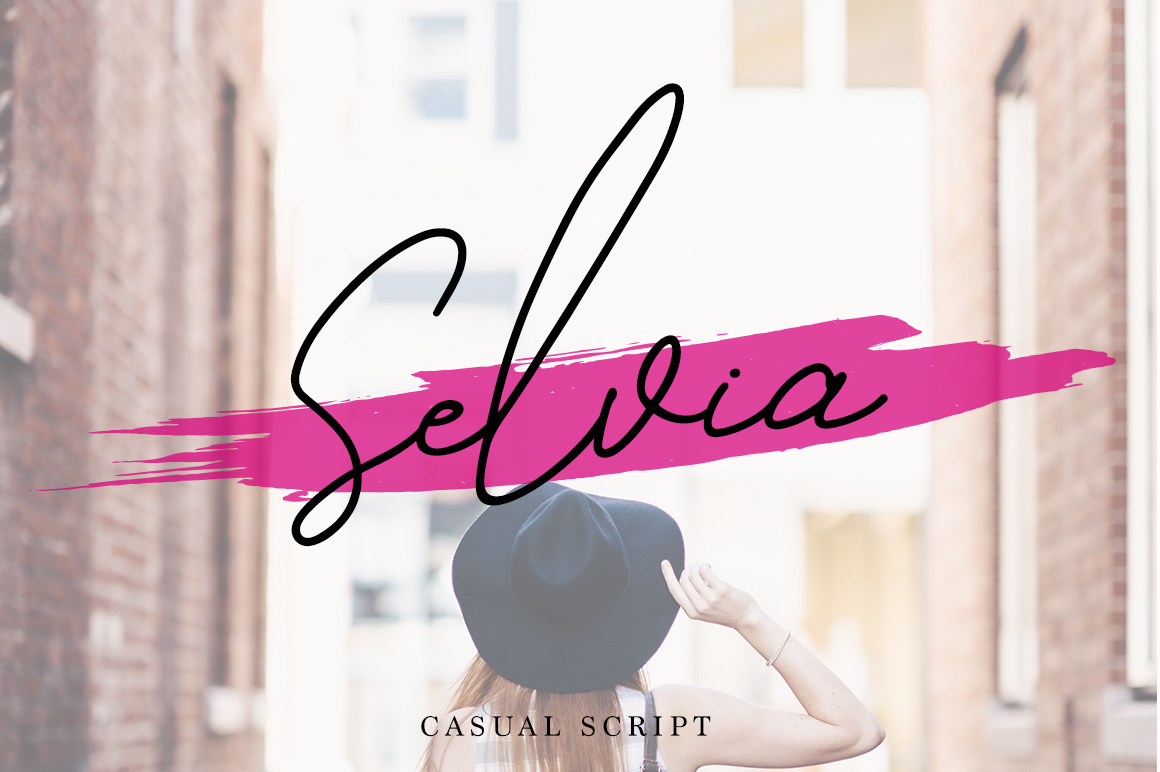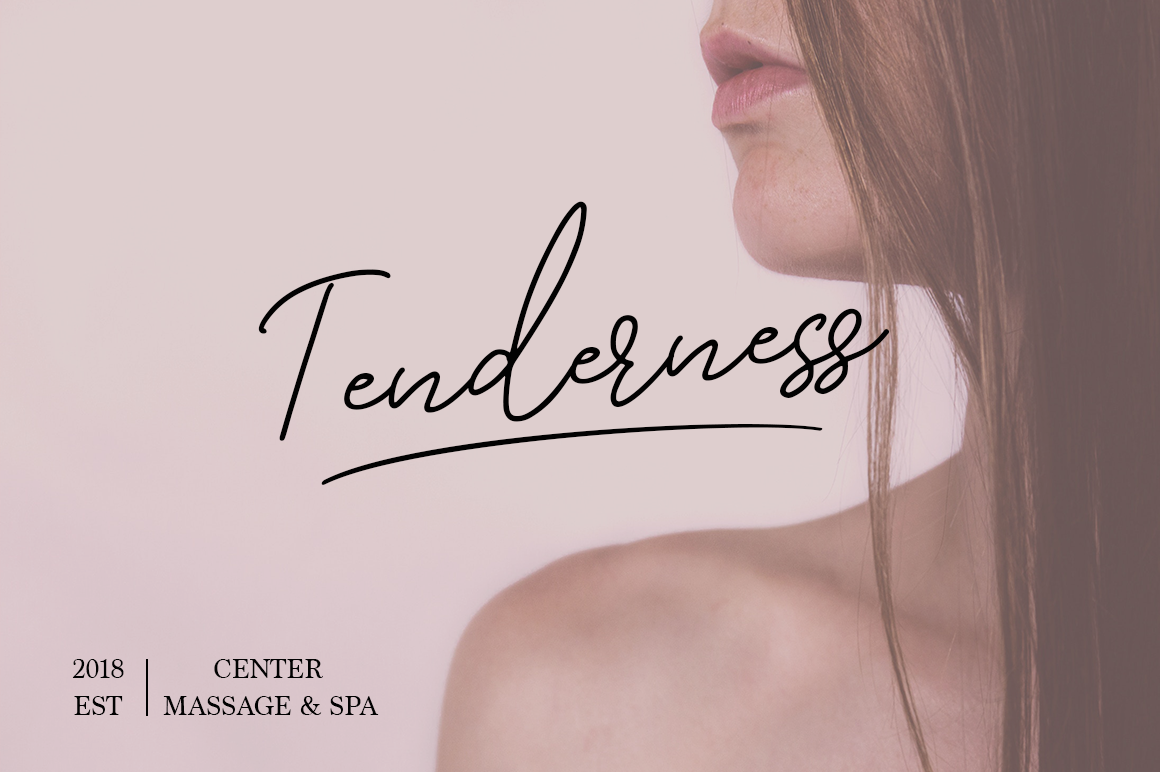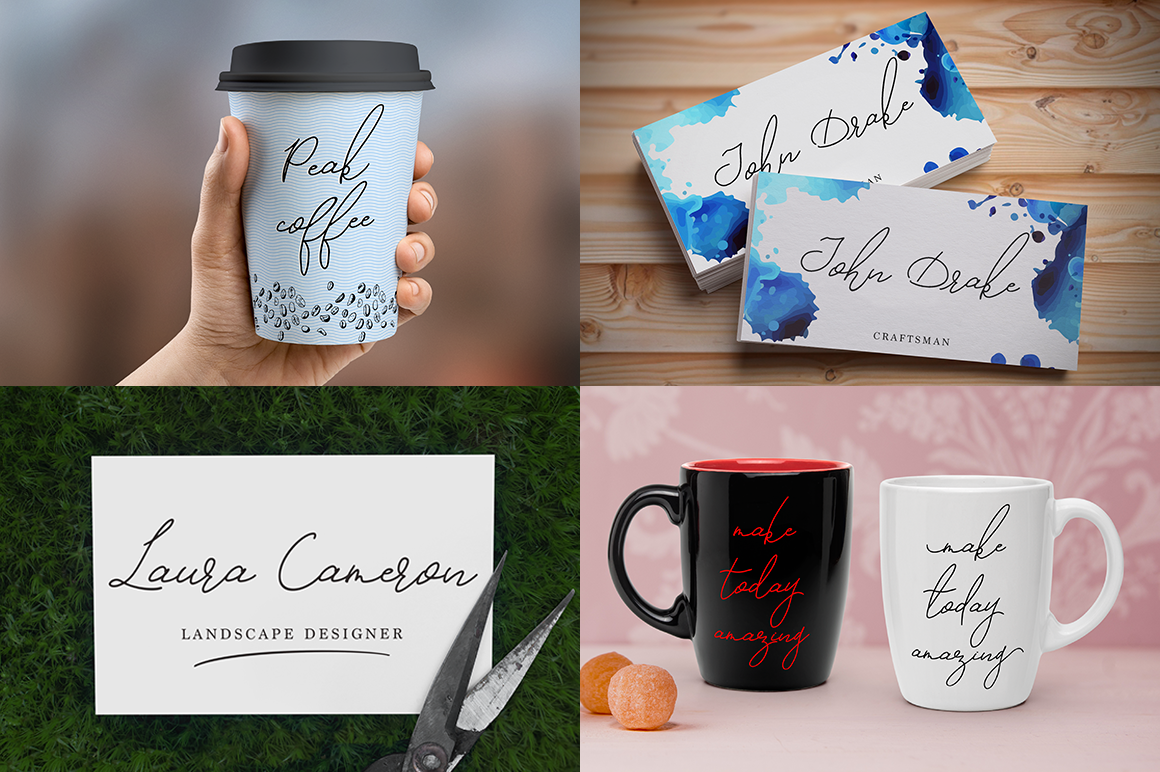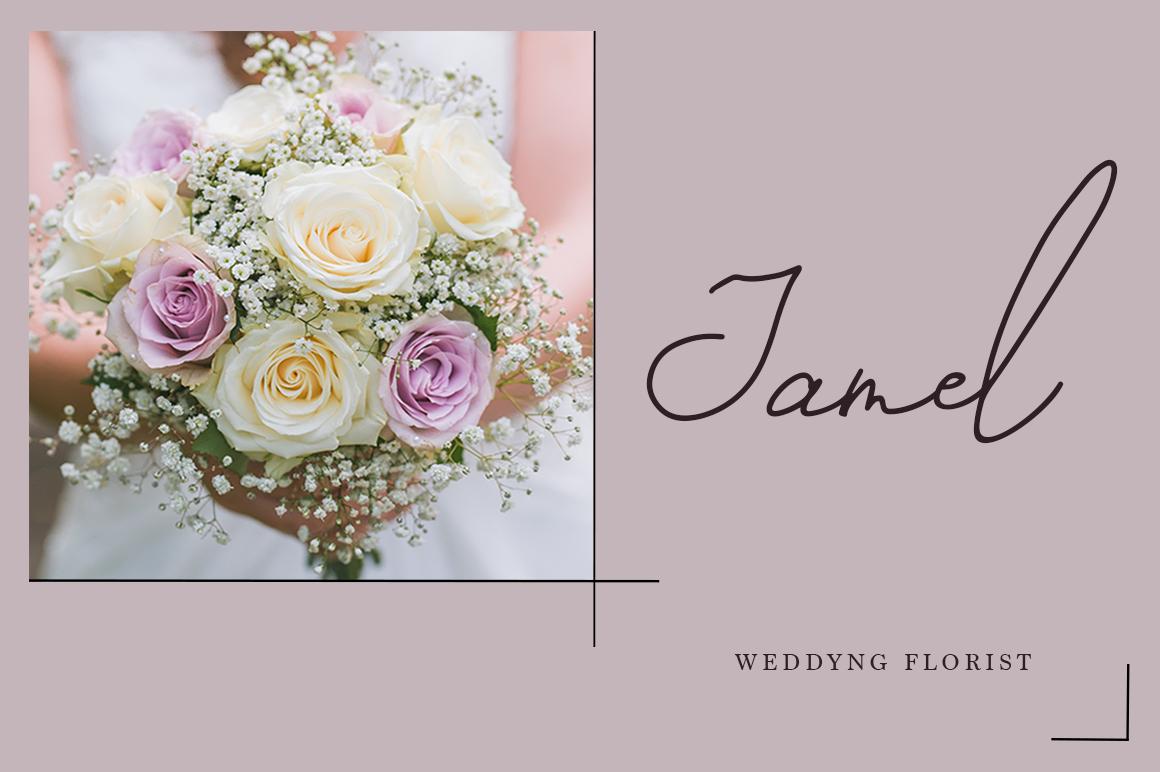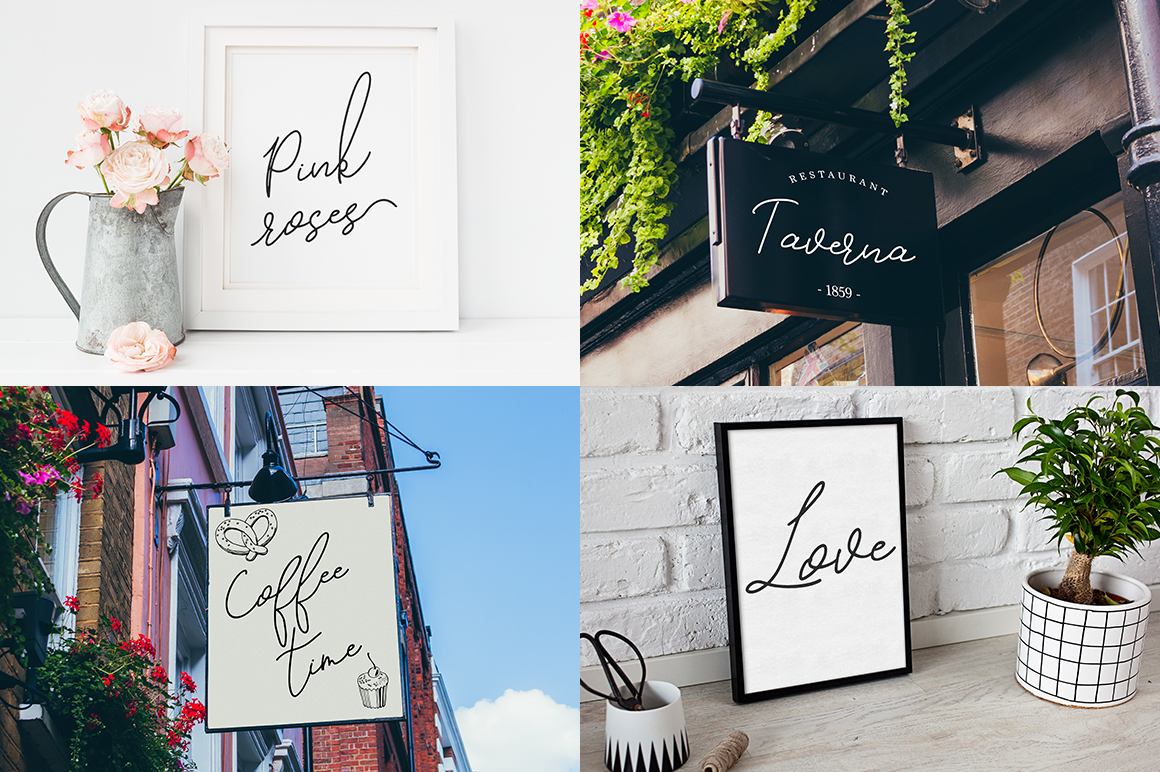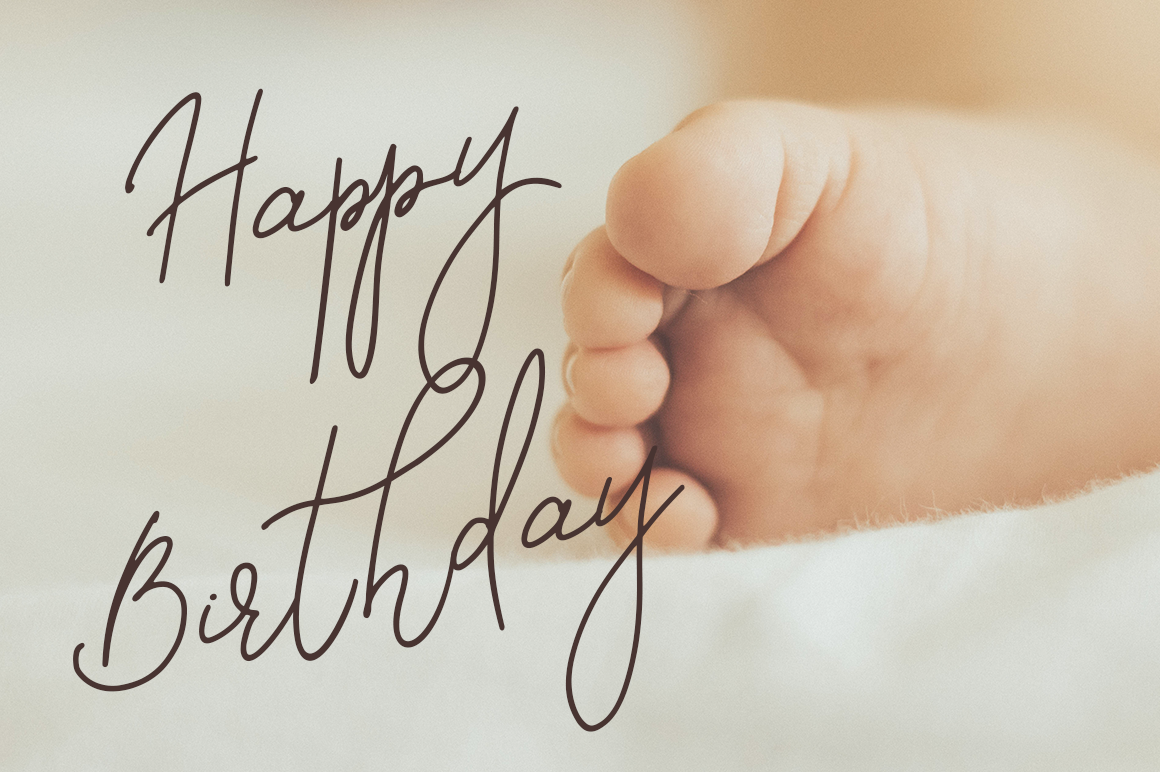
Selvia Font
About Selvia Font
Selvia is a font ideal for branding and decorative allure; this thin, monoline script font is perfect for giving an edgy albeit romantic appeal to your designs and creative projects.